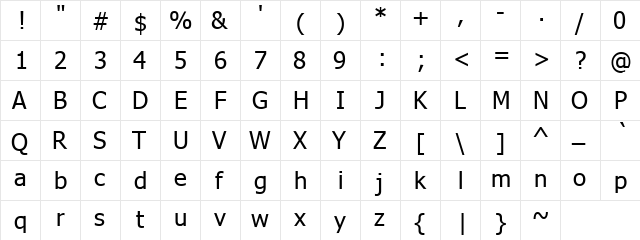
Kundli English Normal
Design Context for Kundli English Typeface
Kundli English is a composed and adaptable typeface that performs quietly and consistently across a wide range of design contexts.
Pro Tip: Pair Kundli English with a font of contrasting weight or personality to build a more expressive typographic hierarchy.